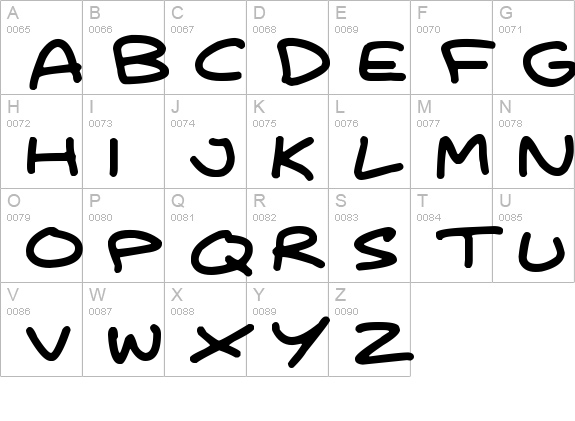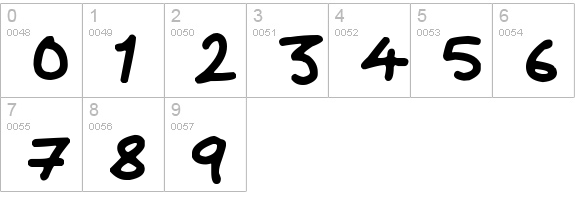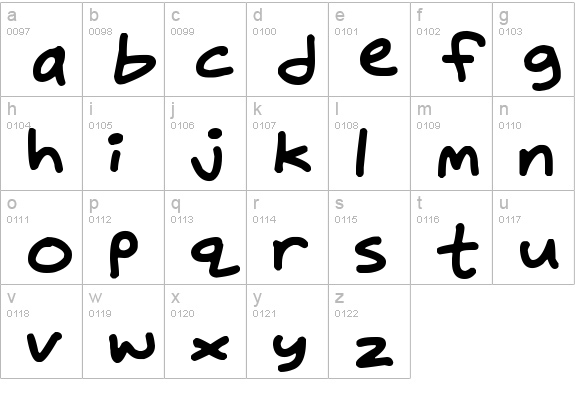
Daydreamer Font Details
Daydreamer is a free for personal use font in the Script > Handwritten category, designed by Darrell Flood. It has been downloaded 67 times and is available for Windows, Mac and Linux.
Daydreamer font is a whimsical and dreamy typeface that will transport your designs to a world of imagination and creativity. With its flowing curves and elegant lines, Daydreamer captures the essence of wandering thoughts and creative musings. This enchanting font is perfect for adding a touch of fantasy to your projects, whether it be a greeting card, poster, or logo design.